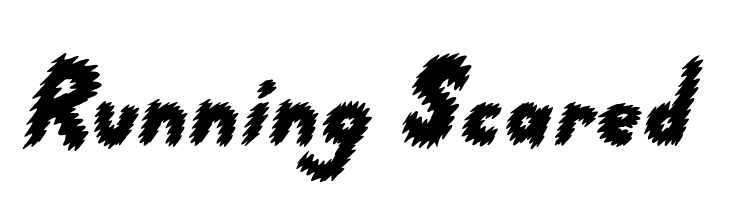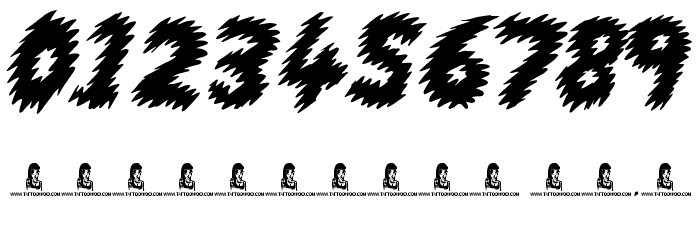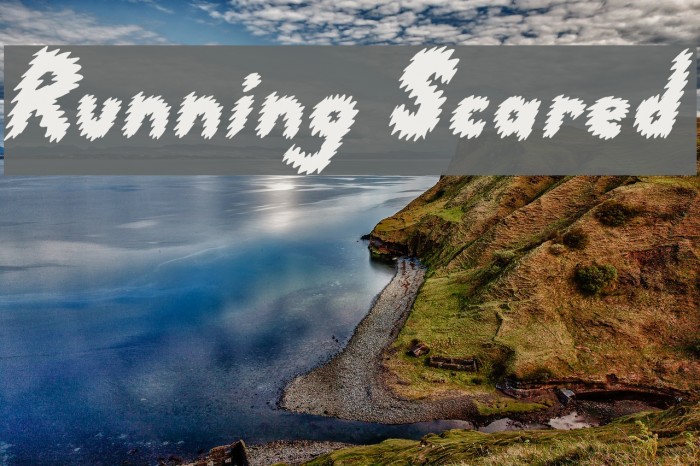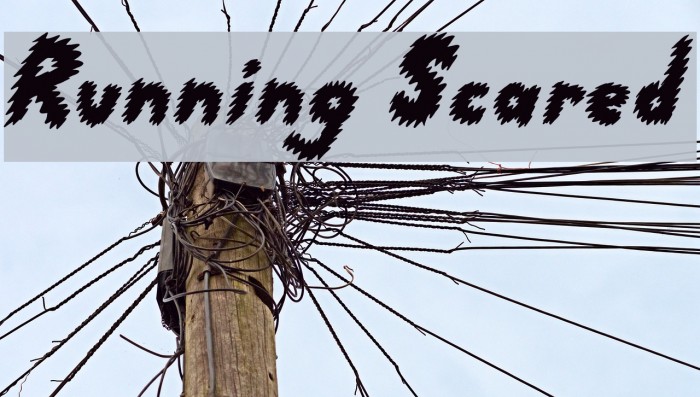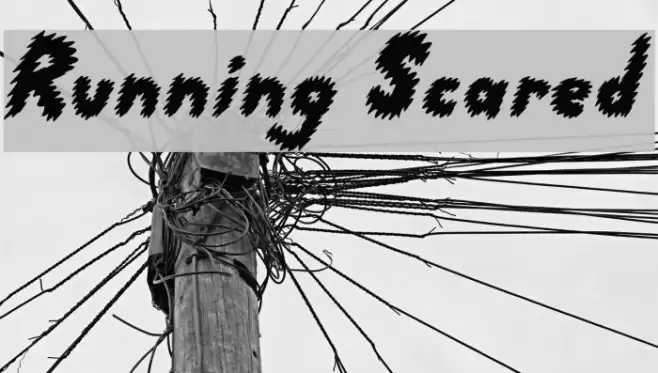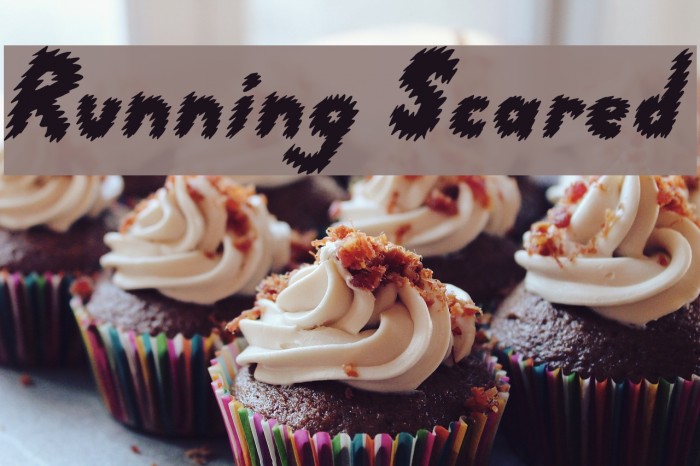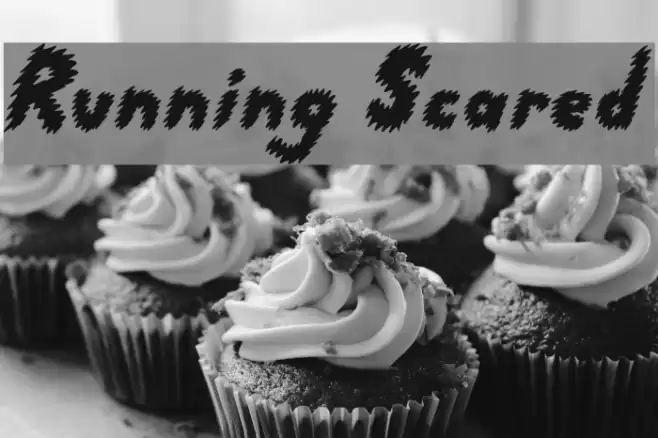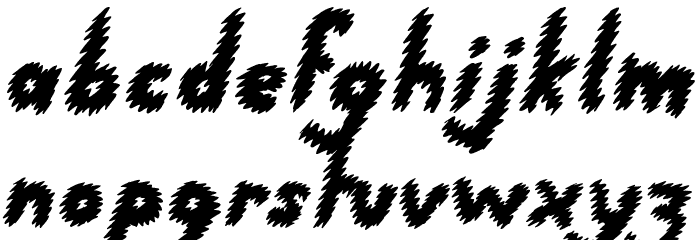
Running Scared Font
| Vorgeschlagene Projekte | Perfect for Halloween-themed designs, horror movie posters, edgy branding, or any project needing a dramatic and eye-catching typeface. |